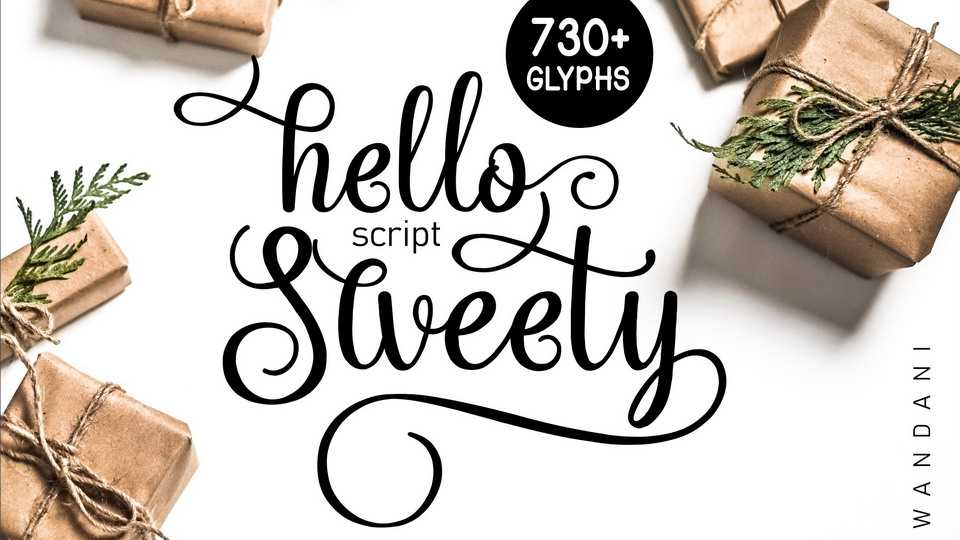
Download Hello Sweety font, a stunning handwritten script with elegance and charm. It bridges the line between masculine and feminine design and can add a unique presence to your work.
Designer: Wandani Creative